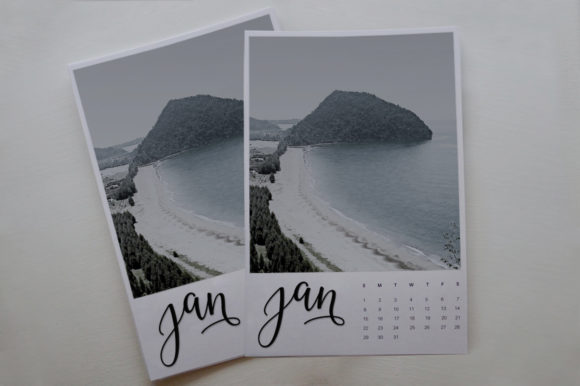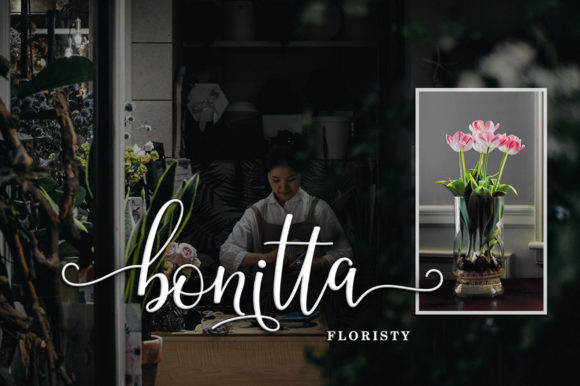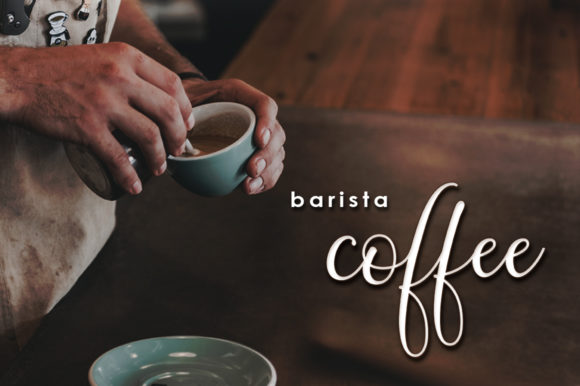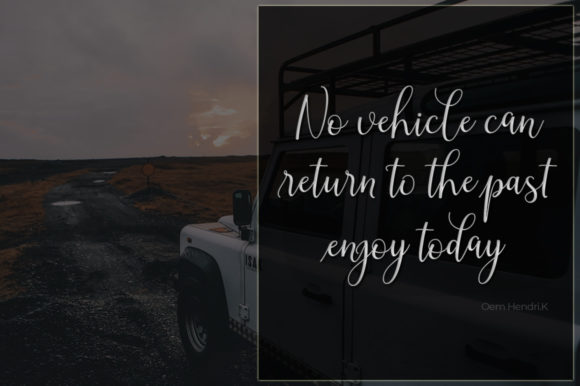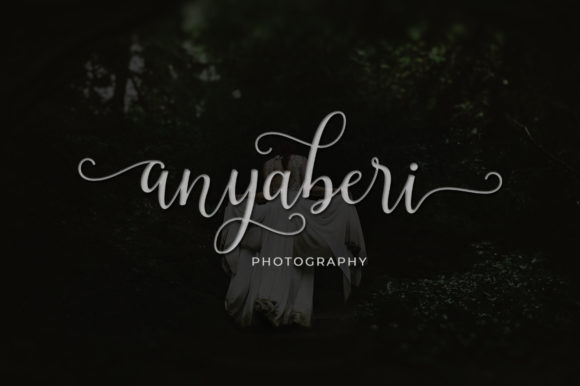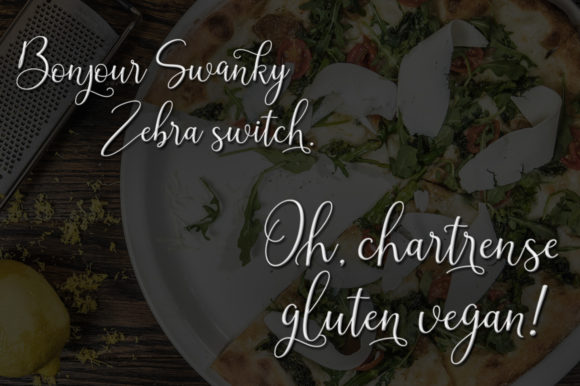
Brittensy Font: Elevate Your Design with Elegant Modern Calligraphy
In the world of design, typography plays a crucial role in conveying the tone and aesthetic of a project. For those seeking to infuse their creations with a touch of elegance and femininity, the Brittensy Font is an exceptional choice. This modern calligraphy script has been gaining popularity among designers and crafters alike for its unique blend of sophistication and charm.
The Essence of Brittensy Font
The Brittensy Font is a modern calligraphy script that embodies the perfect balance of elegance and playfulness. Its fluid strokes and graceful letterforms make it an ideal choice for projects that demand a high level of sophistication. Whether you’re working on a branding project, wedding invitations, or any other design that requires a personal touch, Brittensy Font is sure to impress.
Key Features of Brittensy Font
- Elegant Style: The Brittensy Font boasts an elegant style that can instantly elevate the aesthetic of your design. Its refined letterforms and flowing strokes create a sense of luxury and sophistication.
- Feminine Feel: One of the standout features of the Brittensy Font is its ability to give your design a distinctly feminine feel. This makes it perfect for projects targeting a female audience or for adding a touch of elegance to your creations.
- Modern Calligraphy: As a modern calligraphy script, Brittensy Font brings a fresh and contemporary approach to traditional calligraphy. Its unique blend of classic techniques and modern flair makes it a versatile choice for a wide range of design projects.
- Versatility: The Brittensy Font is incredibly versatile, making it suitable for various design applications. From digital projects like website headers and social media graphics to print materials such as brochures, posters, and business cards, this font can adapt to any design need.
Using Brittensy Font in Design Projects
Tips for Maximizing Impact
- Pair with Complementary Fonts: For maximum impact, consider pairing the Brittensy Font with complementary fonts that enhance its elegance. Serif fonts or simple sans-serifs can create a beautiful contrast.
- Adjust Font Sizes: Experiment with different font sizes to create visual hierarchy and emphasize key elements in your design.
- Play with Colors: The Brittensy Font looks stunning in a variety of colors. Don’t be afraid to experiment with different hues to find the perfect match for your brand or design theme.
Why Designers and Crafters Love Brittensy Font
The Brittensy Font has quickly become a favorite among designers and crafters for several reasons. Its elegant style and feminine feel make it a go-to choice for projects that require a personal and sophisticated touch. Additionally, its versatility and ease of use have made it accessible to creatives of all skill levels.
The Brittensy Font is a powerful tool for any designer or crafter looking to add a touch of elegance and femininity to their projects. With its modern calligraphy style, elegant aesthetic, and versatile application, it’s no wonder that Brittensy Font has become a popular choice in the design community. Whether you’re working on a professional project or a personal craft, incorporating the Brittensy Font is sure to elevate your design and leave a lasting impression.